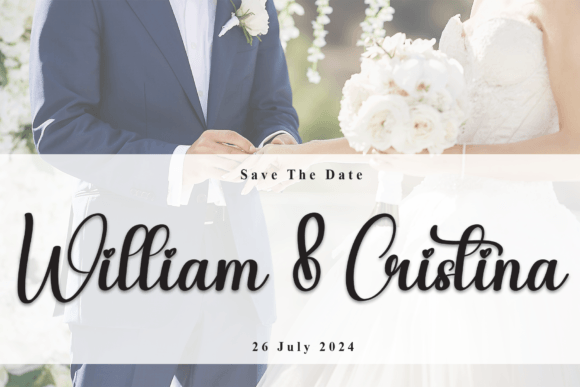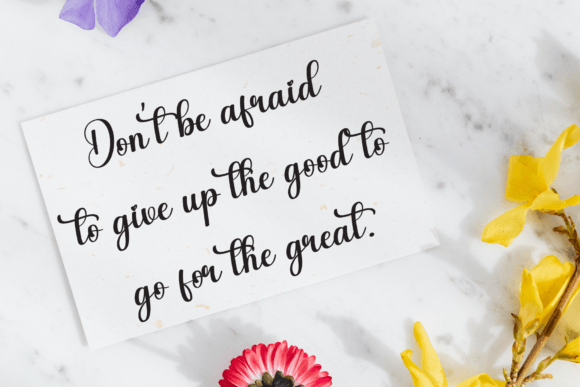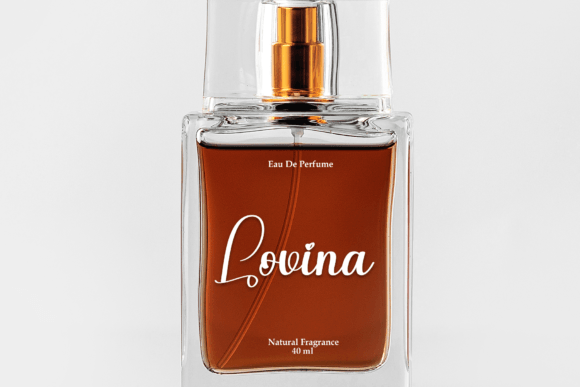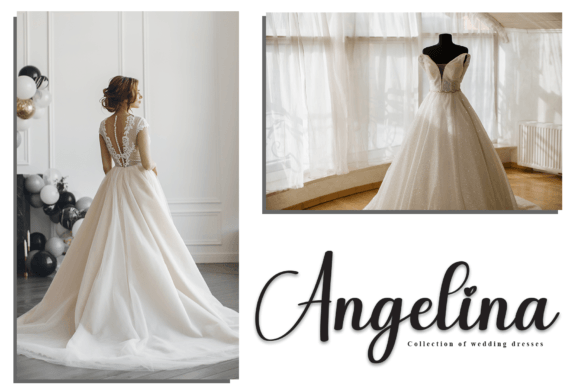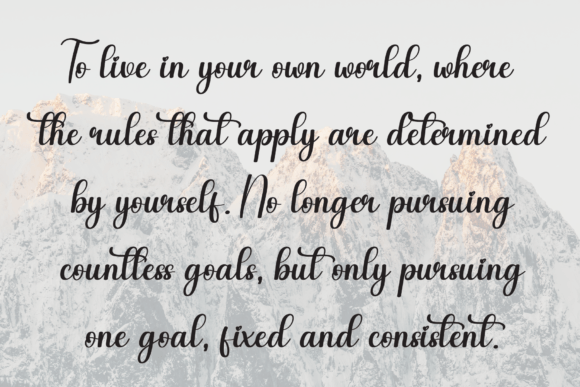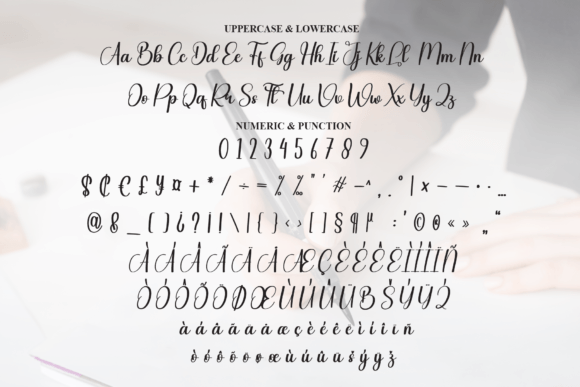
Unleashing the Art of Handwritten Charm
There’s nothing quite like the feeling of scribbling down a quick note in a beautiful, flowing script. It’s as if the words come alive, imbuing the message with a sense of personality and warmth. This is the magic of handwritten typography, and it’s exactly what the Calligraphy Font embodies.
Perfect for personal projects, social media posts, and even invitations, the Calligraphy Font brings an effortless, charming touch to any design. Its easygoing style adds warmth and authenticity, making it an ideal choice for designers looking to create unique and memorable visual experiences.
Whether you’re a seasoned designer or a creative enthusiast, the Calligraphy Font is a valuable tool in your arsenal. Its versatility and charm make it an excellent choice for a wide range of projects, from weddings to branding and beyond.
Key Features of Calligraphy Font
- Unique Characteristics: Calligraphy Font features intricate, hand-drawn lettering with elegant flourishes and swashes, making it ideal for formal invitations, certificates, and other decorative applications.
- Style Options: Calligraphy Font comes in various styles, including Regular, Italic, Bold, and Bold Italic, allowing users to choose the perfect look for their project.
Calligraphy Font Review
Overall, I think the Calligraphy Font is a beautiful and elegant choice for designers looking to add a touch of sophistication to their projects. Here’s what I love about it:
- ✨ Unique, flowing lines that evoke a sense of luxury and refinement.
- ✨ Highly customizable, allowing users to adjust letter spacing, font size, and line height to suit their needs.
- ✨ Excellent legibility, even at smaller font sizes.
- ⚠️ Limited character set, which may not be suitable for projects that require a wide range of characters.
- ⚠️ Can be quite heavy, which may not be ideal for projects where space is limited.
Overall, I think the Calligraphy Font is a great choice for designers who want to add a touch of elegance to their projects. While it may have some limitations, its unique style and high level of customization make it a valuable addition to any designer’s toolkit.
Calligraphy Font: A Practical Application Guide
Calligraphy fonts are ideal for:
- Menu design and food labels
- Artistic and creative projects
For optimal results, use a calligraphy font in conjunction with a high-contrast color scheme and a clear, easy-to-read font for body text.
Alternatives to Calligraphy Font for Designers
Lobster Font is a popular alternative to Calligraphy Font, known for its elegant and cursive style. It’s ideal for use in invitations, wedding cards, and other creative projects that require a touch of sophistication. Unlike Calligraphy Font, Lobster Font is more condensed and has a more uniform line width, making it easier to read.
Pacifico Font is a modern script font that’s perfect for designers looking for a more contemporary take on calligraphy. It’s great for use in headings, titles, and body text where a clean and elegant look is desired. Compared to Calligraphy Font, Pacifico Font has a more refined and sophisticated feel, making it suitable for a wider range of projects.
Carolyna Pro Font is a high-end script font that’s designed for luxury and sophistication. It’s ideal for use in high-end branding, advertising, and editorial projects where a premium feel is required. Unlike Calligraphy Font, Carolyna Pro Font has a more refined and precise style, making it perfect for projects that demand a high level of elegance.